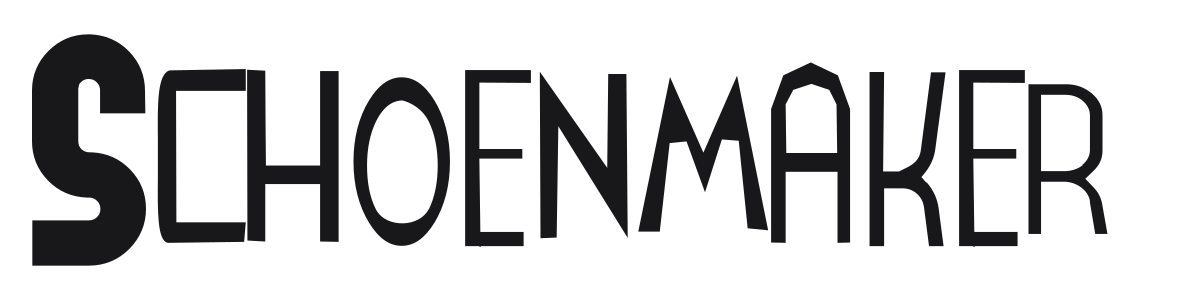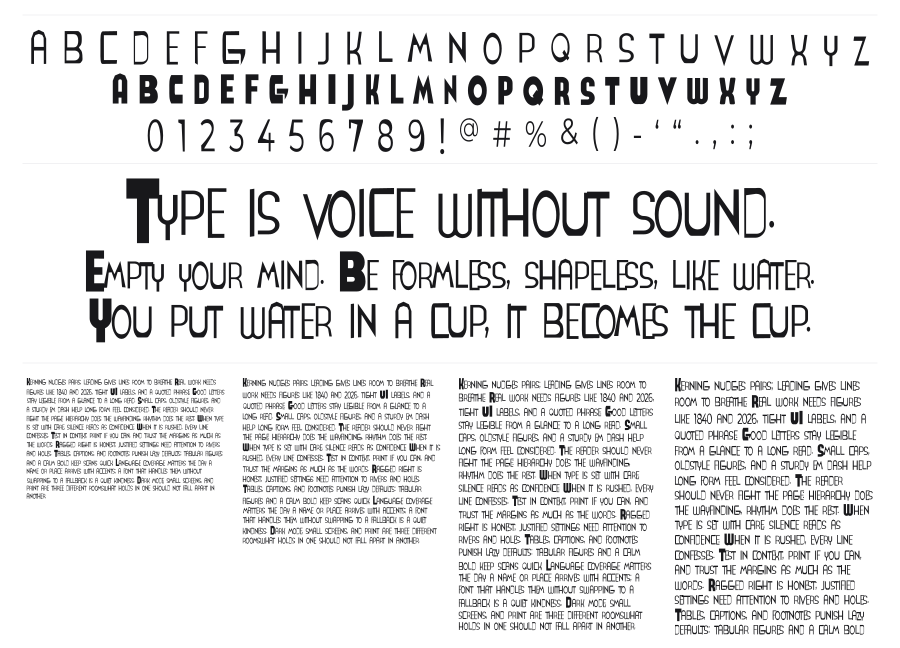
Schoenmaker
Schoenmaker is a condensed geometric sans with deep Art Deco roots and a distinctly industrial edge. Rectangular notches and cutouts are carved into letters at key junctions, creating a fragmented, almost hand-built quality that sets it apart from cleaner retro revivals. It commands attention at large sizes and suits any project that needs a strong vintage personality without going full ornamental.